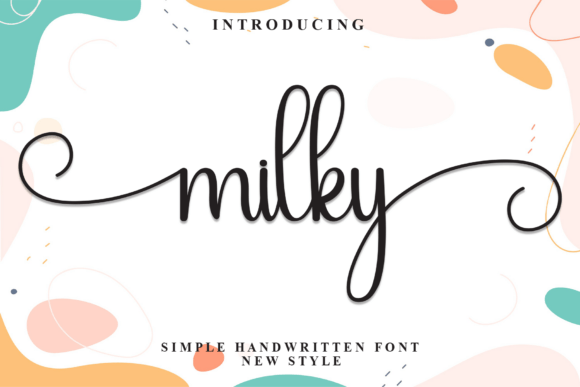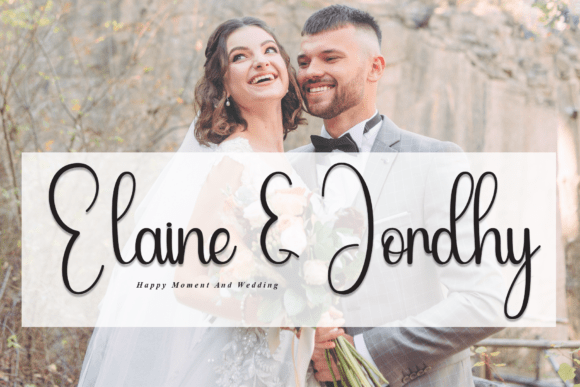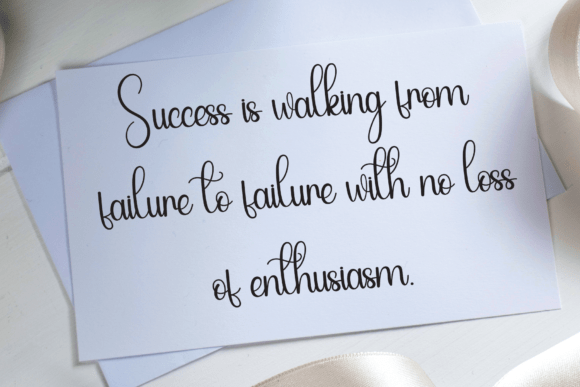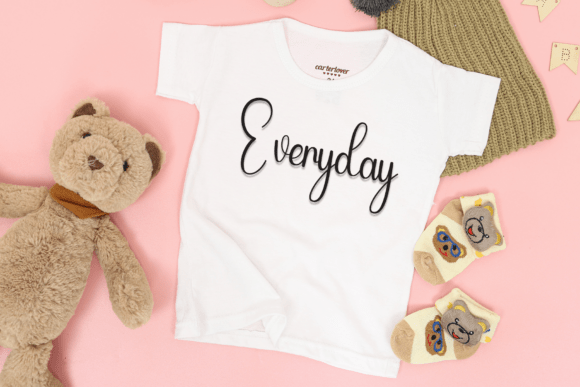
Milky Font: Elegant Handwritten Script for Wedding & Branding Design
About the Milky Font
Presenting Milky Font, a unique and stylish typeface that will make your work stand out. Milky is a stylish handwritten script font that radiates elegance and fluidity. Its smooth, flowing strokes create a natural and sophisticated feel, perfect for branding, invitations, and creative projects. With a graceful balance of charm and modernity, this typeface adds a personal, artistic touch to any design.
Milky’s elegant fluidity makes it ideal for headlines, logos, short text blocks on packaging, and invitations where its refined aesthetic shines. However, its script nature limits readability in body text or long paragraphs; avoid using it for UI elements or extensive content.
Its inherent sophistication pairs well with clean sans-serif fonts like Lato or Montserrat for a contemporary feel, or with a classic serif like Garamond or Playfair Display for a more traditional, yet still balanced look. A geometric sans-serif like Futura could also provide a striking contrast, enhancing Milky’s organic forms.
Milky projects a sophisticated, yet approachable personality. It’s best suited for brands that value craftsmanship, artistry, and a touch of personal warmth, such as high-end stationery, boutique shops, or artisanal food products.
Milky Font Usage Examples
Milky Font Example